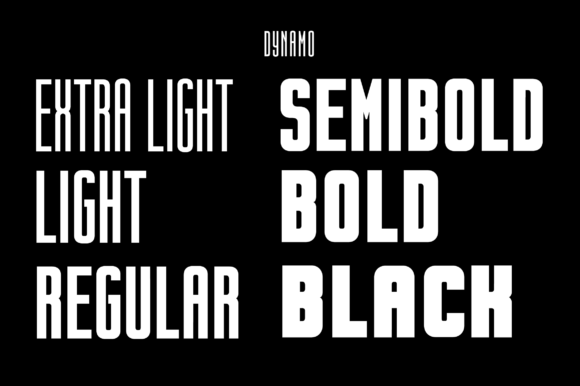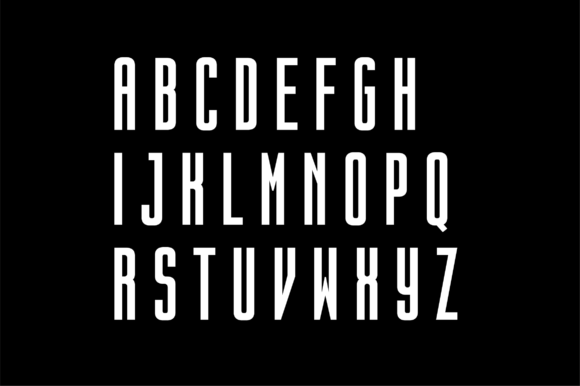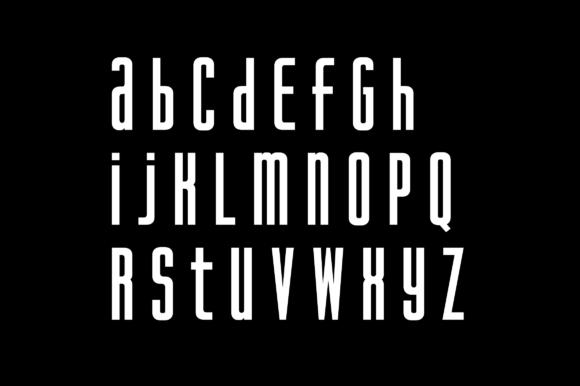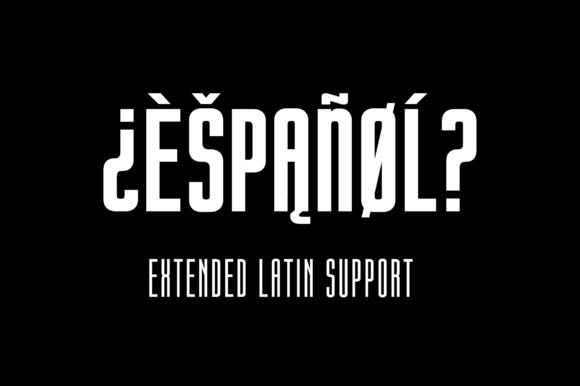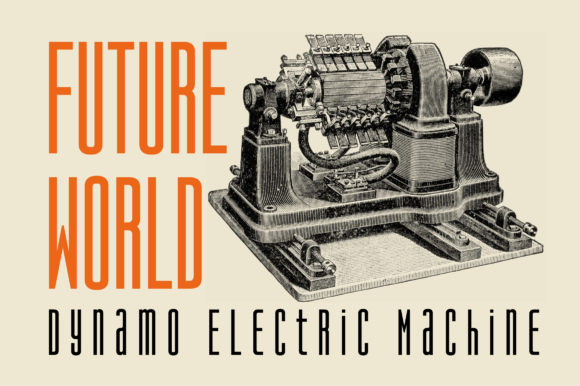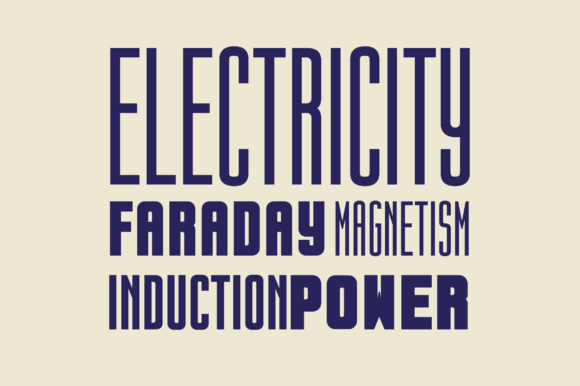
Unlocking the Power of Typography: Introducing the Dynamo Family Font
Have you ever stared at a blank canvas, trying to bring your creative vision to life, but struggling to find the perfect font to set the tone? That’s exactly where the Dynamo Family Font comes in – a geometric sans serif that’s about to revolutionize the way you design.
This versatile font is inspired by the modernist typefaces of the early 20th century, with a condensed design that’s perfect for large titles, headers, posters, banners, and logos. With six weights and an OpenType Variable Font, you’ll have endless possibilities for creative expression. The Dynamo Family Font even includes uppercase and unicase options, making it an invaluable tool for designers looking to add a touch of sophistication to their work.
Dynamo Family Font Key Features
- Font Family: Dynamo Family Font is a collection of fonts that includes various styles such as regular, bold, italic, and bold italic.
- Unique Characteristics: Dynamo Family Font features a modern, dynamic design with a unique blend of geometric and organic shapes, making it perfect for creative and innovative projects.
- Character Count: Includes a vast character set with over 1000 glyphs, including international characters and symbols, making it suitable for multilingual projects.
Dynamo Family Font Review
The Dynamo Family Font is an impressive addition to any design project. ✨ I love how versatile it is, with a range of weights and styles to suit different moods and themes. From elegant to bold, this font can effortlessly adapt to your needs.
- ✨ Versatility: The font’s wide range of weights and styles make it perfect for various design applications.
- ✨ High-quality design: The font’s sleek and modern design makes it a great choice for contemporary projects.
- ✨ Easy to read: The font’s clear and legible design ensures that the text is easy to read, even at smaller font sizes.
- ⚠️ Limited language support: The font may not support all languages, which could be a concern for multilingual projects.
- ⚠️ Limited customization options: While the font has a wide range of weights and styles, it may not be possible to customize it further without extensive editing.
Overall, I’m impressed with the Dynamo Family Font’s capabilities and flexibility. While it has some limitations, its strengths far outweigh its weaknesses, making it a solid choice for designers looking for a reliable and versatile font.
Getting the Most Out of the Dynamo Family Font
Use the Dynamo Family Font for titles, headings, and body text to create a cohesive and visually appealing design.
Experiment with different font weights and styles to add depth and emphasis to your text.
The Dynamo Family Font is ideal for:
- Corporate communications and marketing materials.
- Editorial and publishing projects.